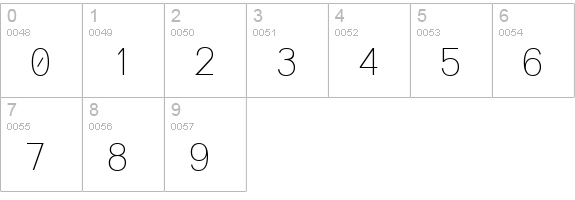
Upper Lane Light is a refined, elegant variant in the Upper typeface family \xE2\x80\x94 well suited to elegant body text, refined sub-headings, and luxury branding.
Upper Lane Light font is a captivating and stylish typeface that adds a touch of elegance to any design project. With its clean lines and sophisticated curves, this font exudes a sense of modernity and refinement. The light weight of the font gives it a delicate and airy feel, making it perfect for projects that require a subtle and minimalist approach. Whether you are designing a logo, creating a brand identity, or crafting a beautiful graphic, Upper Lane Light is sure to elevate your work to new heights. Its versatility allows it to be used in a variety of settings, from fashion magazines and high-end websites to wedding invitations and product packaging. One of the best things about Upper Lane Light font is that it is available for free download at FontsMarket.com. This means that you can easily access this exquisite font without any cost. FontsMarket.com is a trusted source for high-quality fonts, and they offer a wide range of options to choose from. So, why wait? Begin your design journey with Upper Lane Light font and let your creativity soar. With its timeless appeal and free availability, this font is a must-have for any designer or creative professional. Don't miss out on the opportunity to enhance your design projects with this stunning typeface. Download Upper Lane Light font today and experience the power of elegant typography.